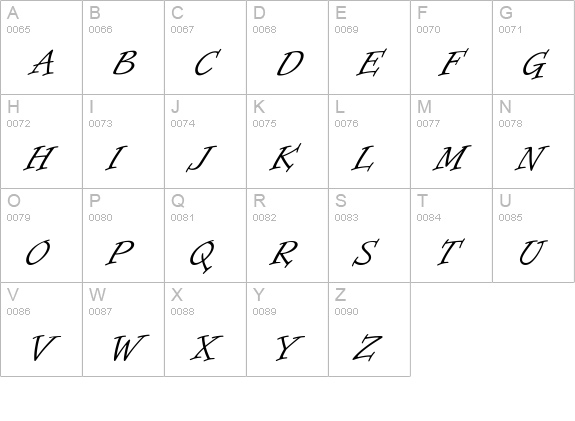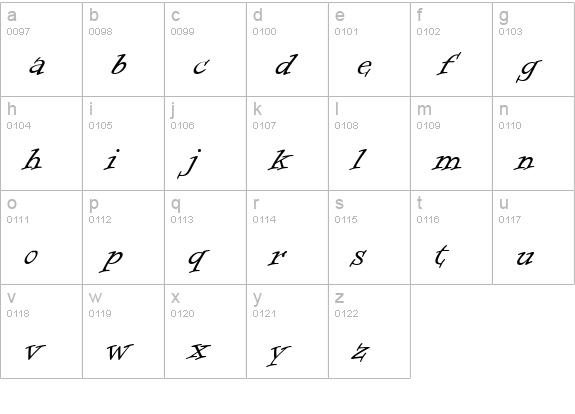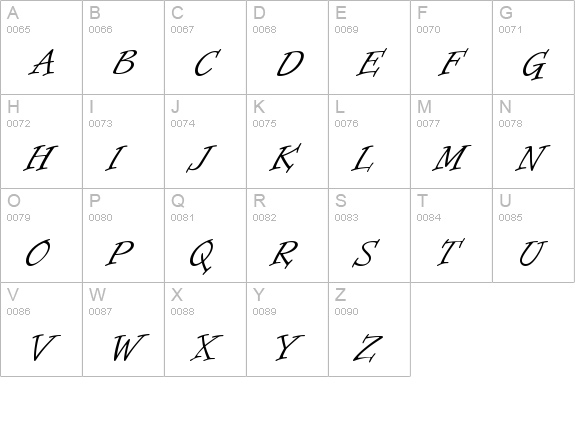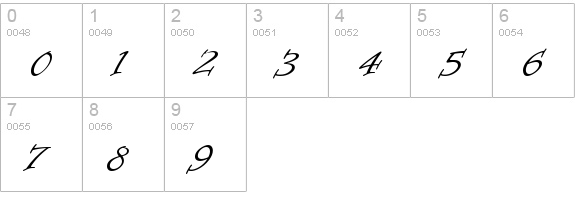
Informal Roman Font Details
Looking for a font that exudes elegance and sophistication, but with a touch of informality? Look no further than the Informal Roman font. This stunning typeface combines the classical beauty of traditional Roman letterforms with a relaxed, casual vibe. With its slightly slanted and rounded edges, Informal Roman is perfect for projects that require a balance between professionalism and approachability. Whether you're designing a logo, creating invitations, or crafting a headline for a blog post, this font is sure to make a statement. One of the best things about Informal Roman is that it is freely available to download at FontsMarket.com. This means you can add this versatile font to your design toolbox without breaking the bank. It's a fantastic option for both personal and commercial projects, allowing you to create captivating designs without any restrictions. So, why wait? Embrace the timeless charm of Informal Roman and elevate your designs to new heights. Download it today from FontsMarket.com and let your creativity flow freely.